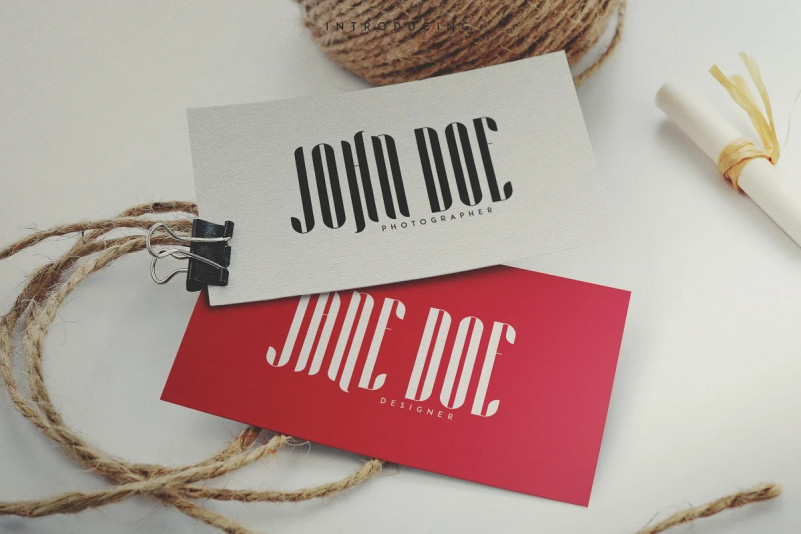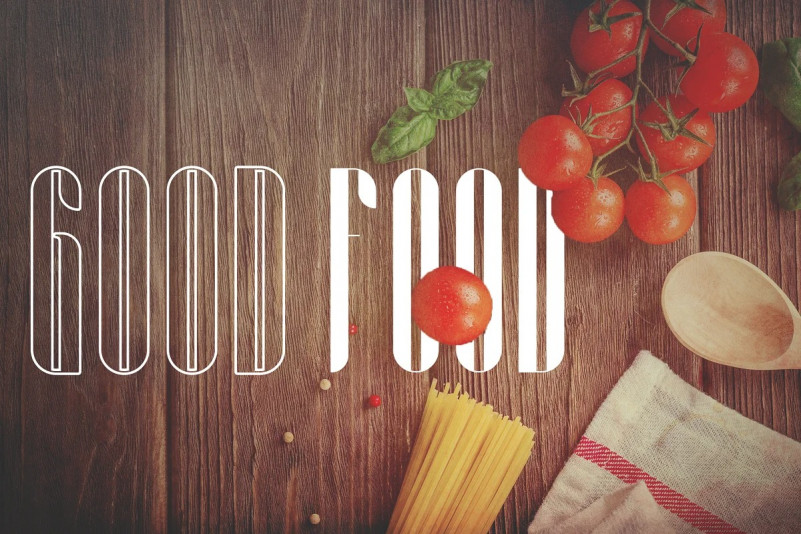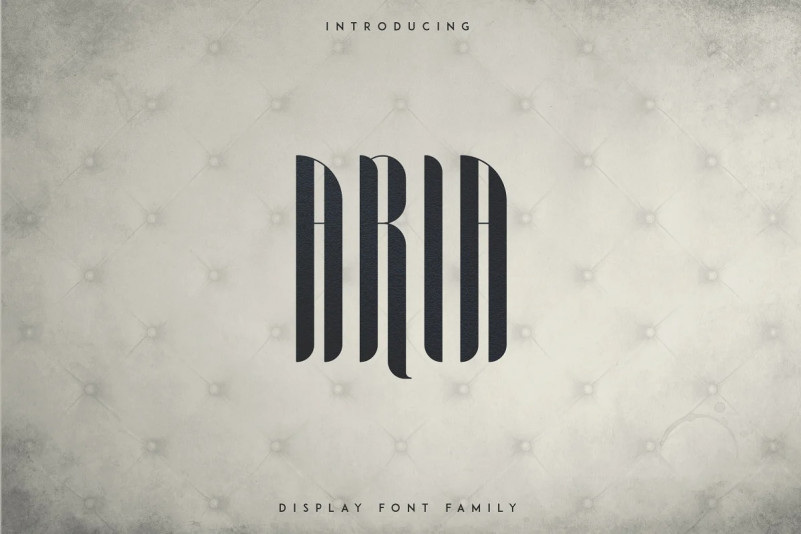
Lauge Font
Lauge Display Font, originally created as a corporate typeface for etiket packaging design. Inspired by old danish style and old museum posters from the 30s. This font is great for logos, children’s books, posters, packaging design, movie posters, branding and more Other interesting design projects. Enjoy!